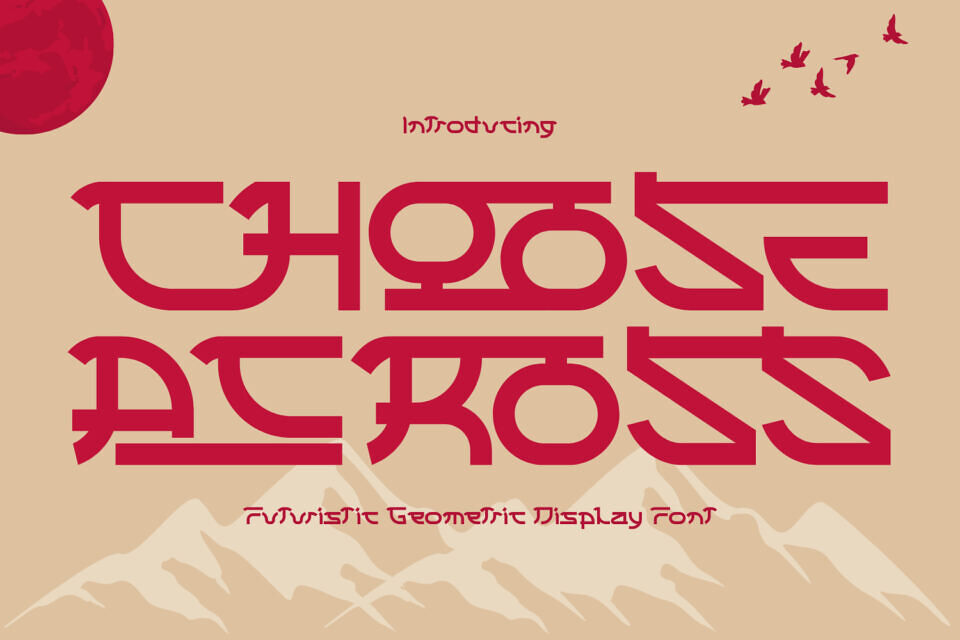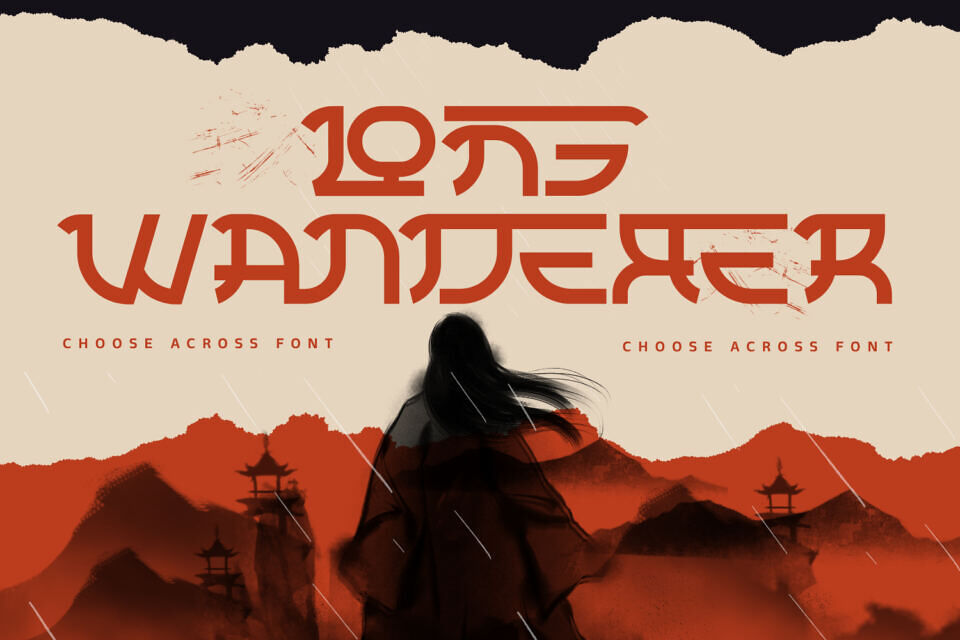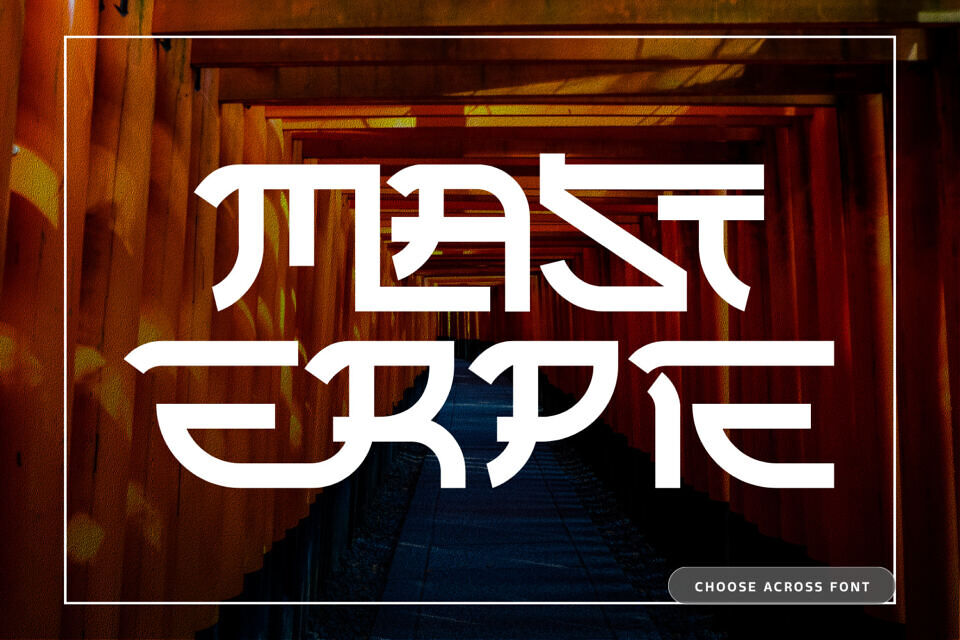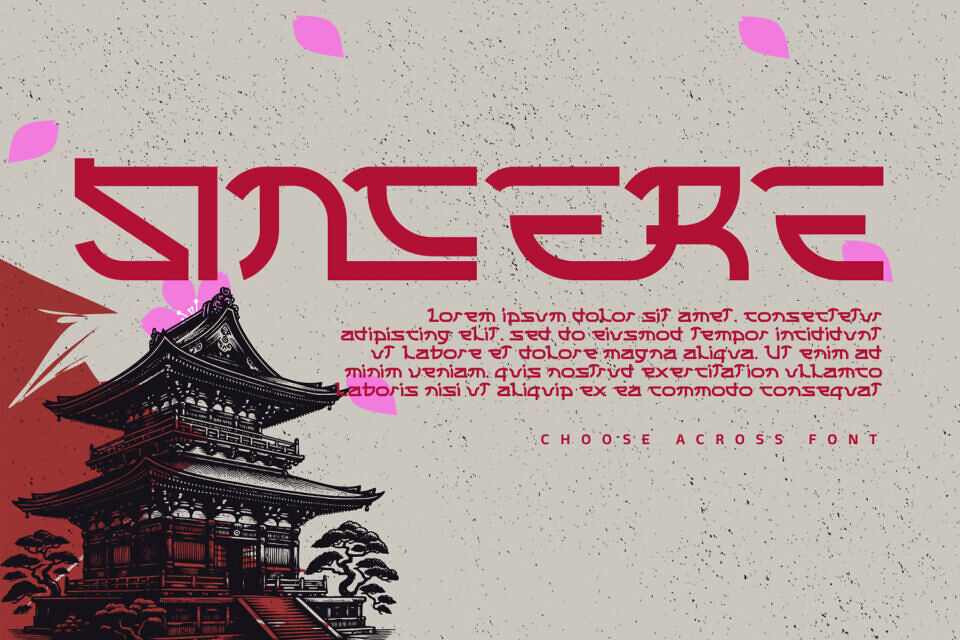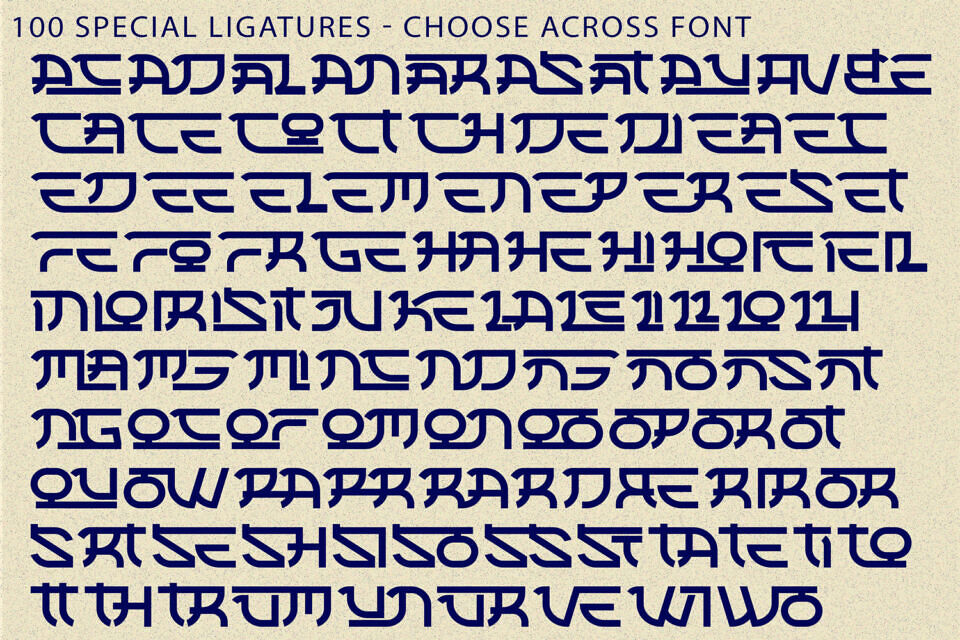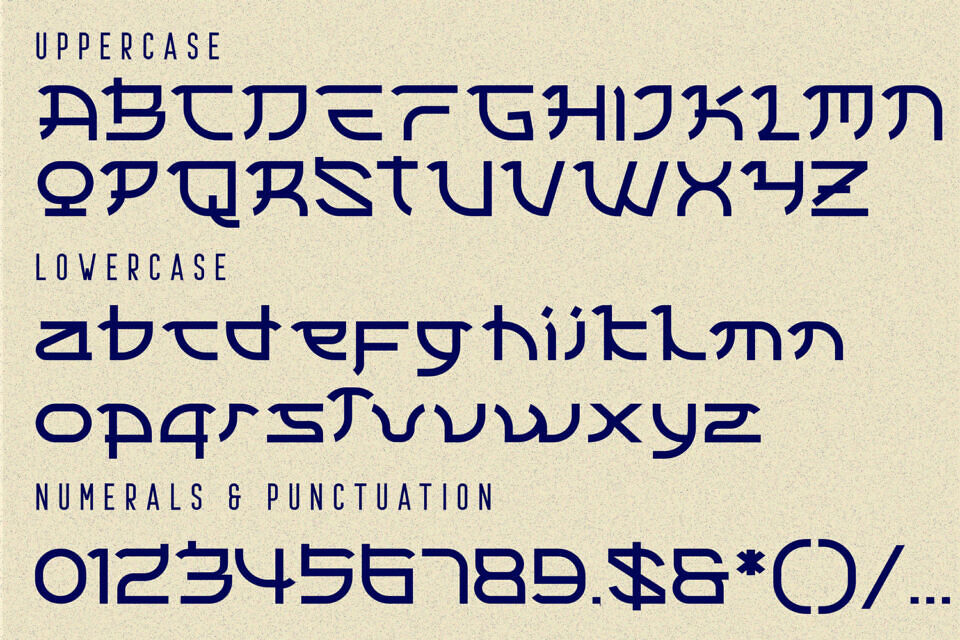
Choose Across Font
CHOOSE ACROSS is a bold retro display serif font that blends timeless Art Deco elegance with modern geometric precision.
Designed with thick monoline strokes, rounded letterforms, extended horizontal bars, and distinctive angular details, this typeface creates a striking visual identity that is both sophisticated and memorable. Its decorative construction gives every word a strong architectural presence while maintaining excellent readability for large-format typography.